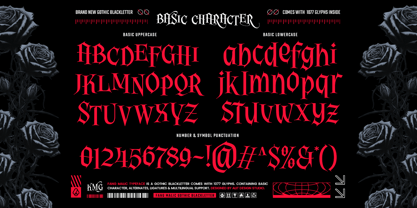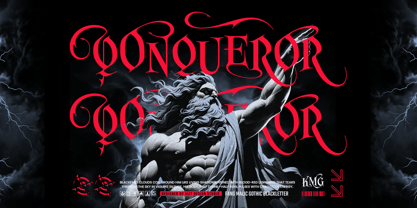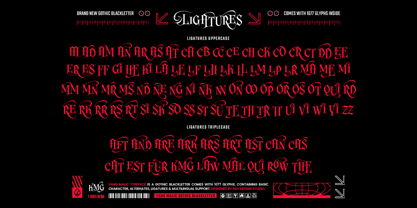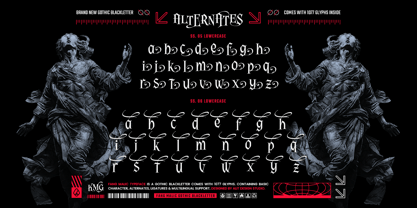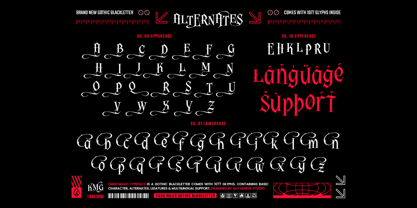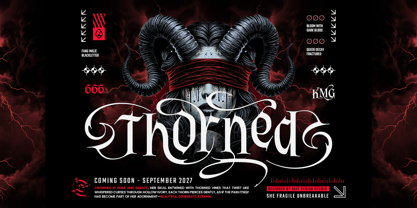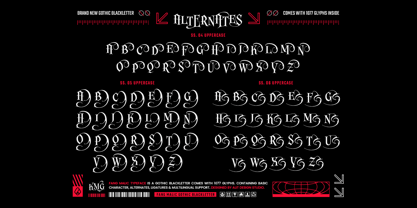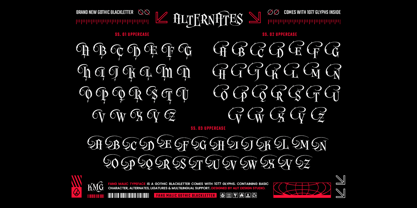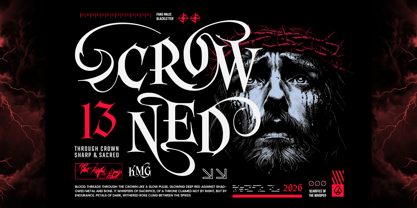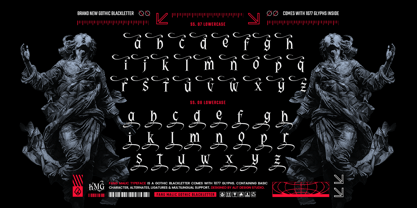
Fang Malic - Gothic Blackletter Typeface
Embrace the Spirit of Rebellion.
Introducing Fang Malic Typeface, a premium Gothic Blackletter font that masterfully blends the raw energy of urban culture with the dark, intricate elegance of vintage typography. Born from the shadows and heavily inspired by the modern streetwear movement, Fang Malic delivers a bold, striking statement for any design project that needs to stand out.
Crafted with meticulous attention to detail by Alit Design Studio, this typeface goes far beyond a standard character set. It is an absolute powerhouse for typography enthusiasts and professional designers, boasting a massive collection of 1,077 glyphs.
Whether you are designing impactful apparel graphics, edgy tattoo studio branding, heavy metal album covers, or dramatic editorial layouts, Fang Malic gives you unparalleled creative freedom. With extensive stylistic sets and complex ligatures, you can effortlessly customize your typography to look authentically hand-lettered and beautifully ornate.
Best for:
• Streetwear & Apparel Design
• Band Logos & Merchandise (Metal, Rock, Gothic)
• Tattoo Studio Branding
• Poster & Flyer Design
• Urban & Edgy Packaging
• Beverage Labels
Key Features:
• Total 1,077 Glyphs: A massive library of characters to explore.
• Basic Characters: Full uppercase and lowercase alphabet.
• Numerals & Punctuation: Complete set of numbers and essential symbols.
• Extensive Alternates: 10 Stylistic Sets (SS.01 - SS.10) for Uppercase and 8 Stylistic Sets (SS.01 - SS.08) for Lowercase, offering endless flourish combinations.
• Unique Ligatures: Includes standard Uppercase ligatures and specialized Triplecase ligatures for seamless, custom-looking typography.
• Multilingual Support: Broad language support to accommodate global design needs.
Bring your dark, urban, and rebellious visions to life with Fang Malic!